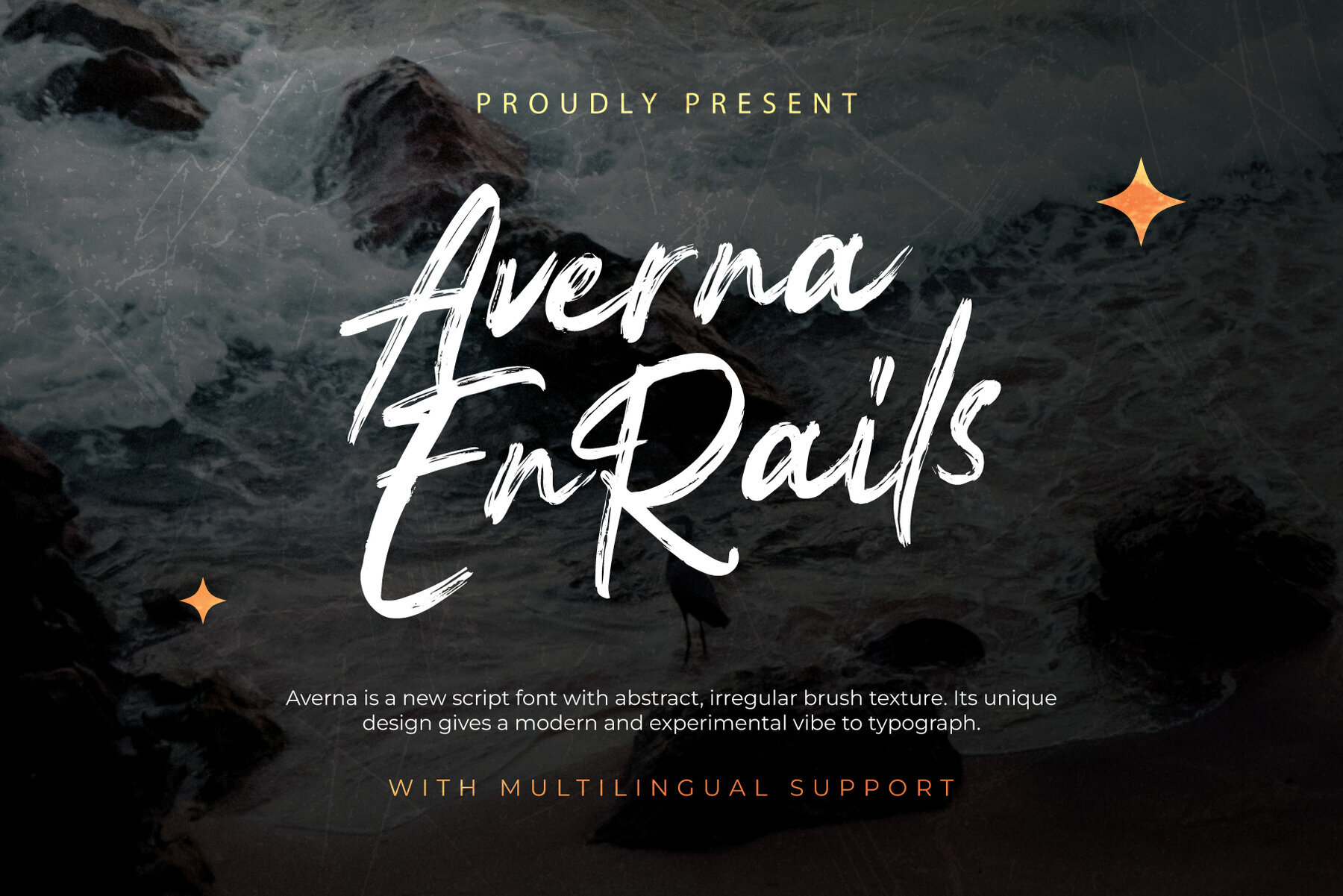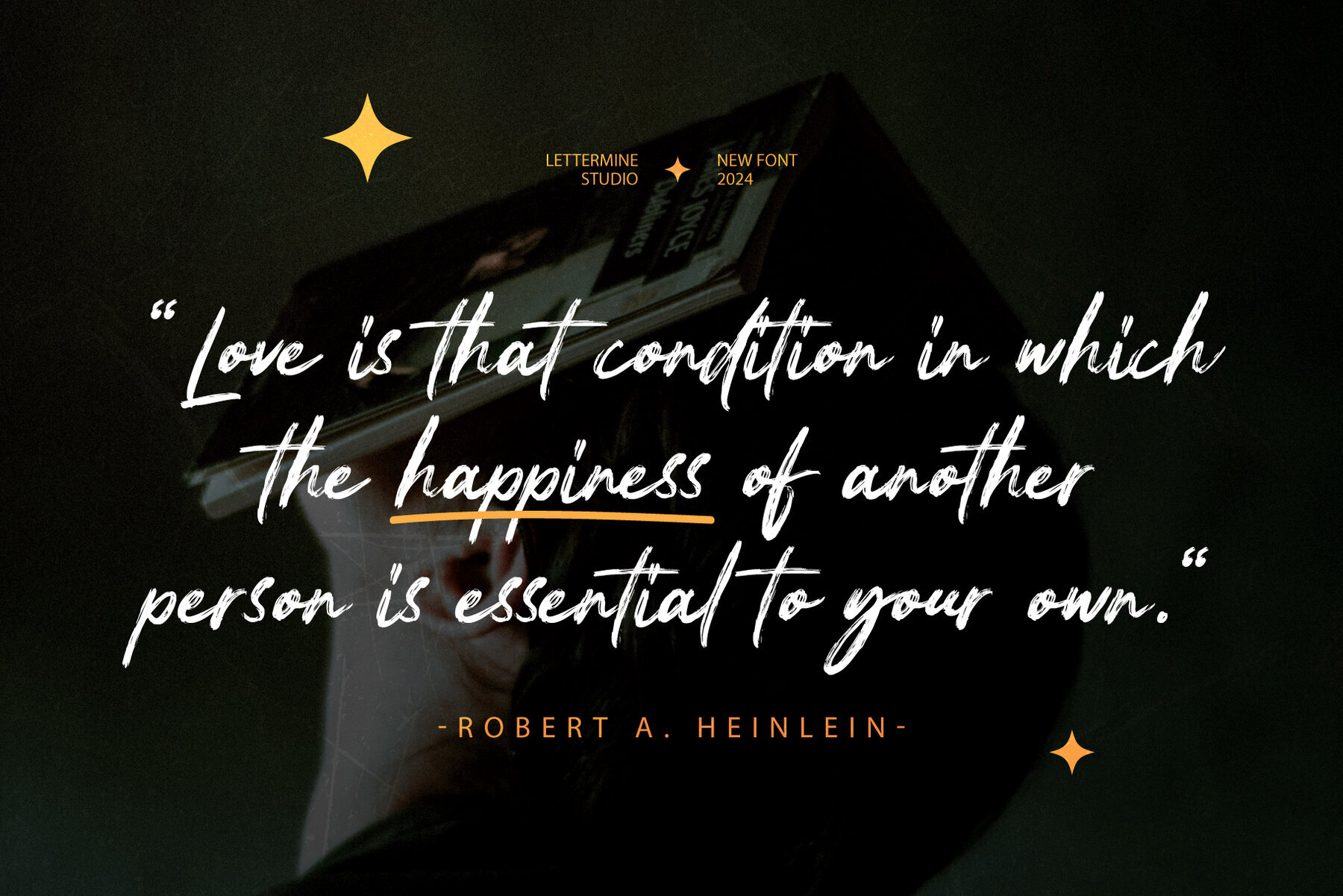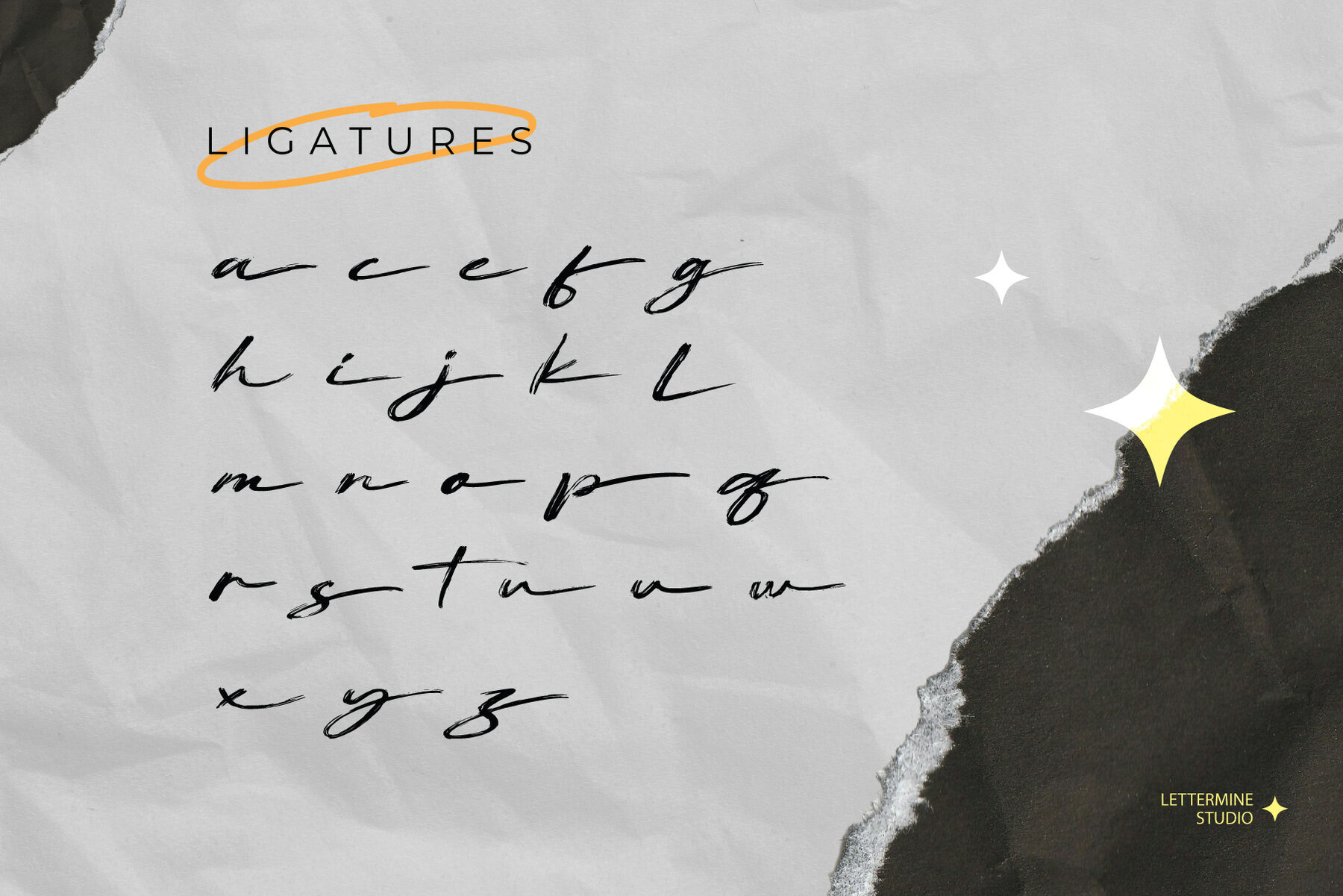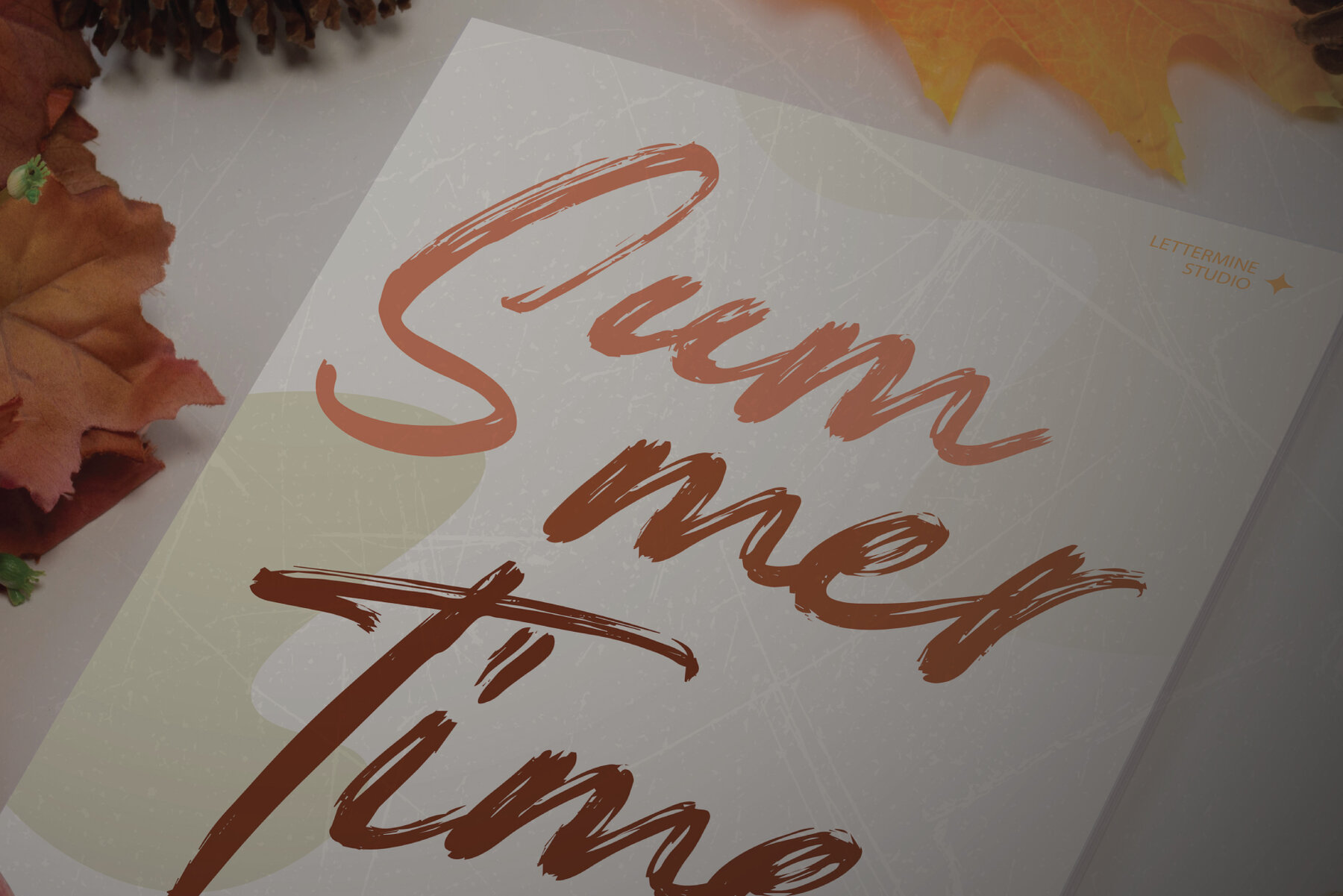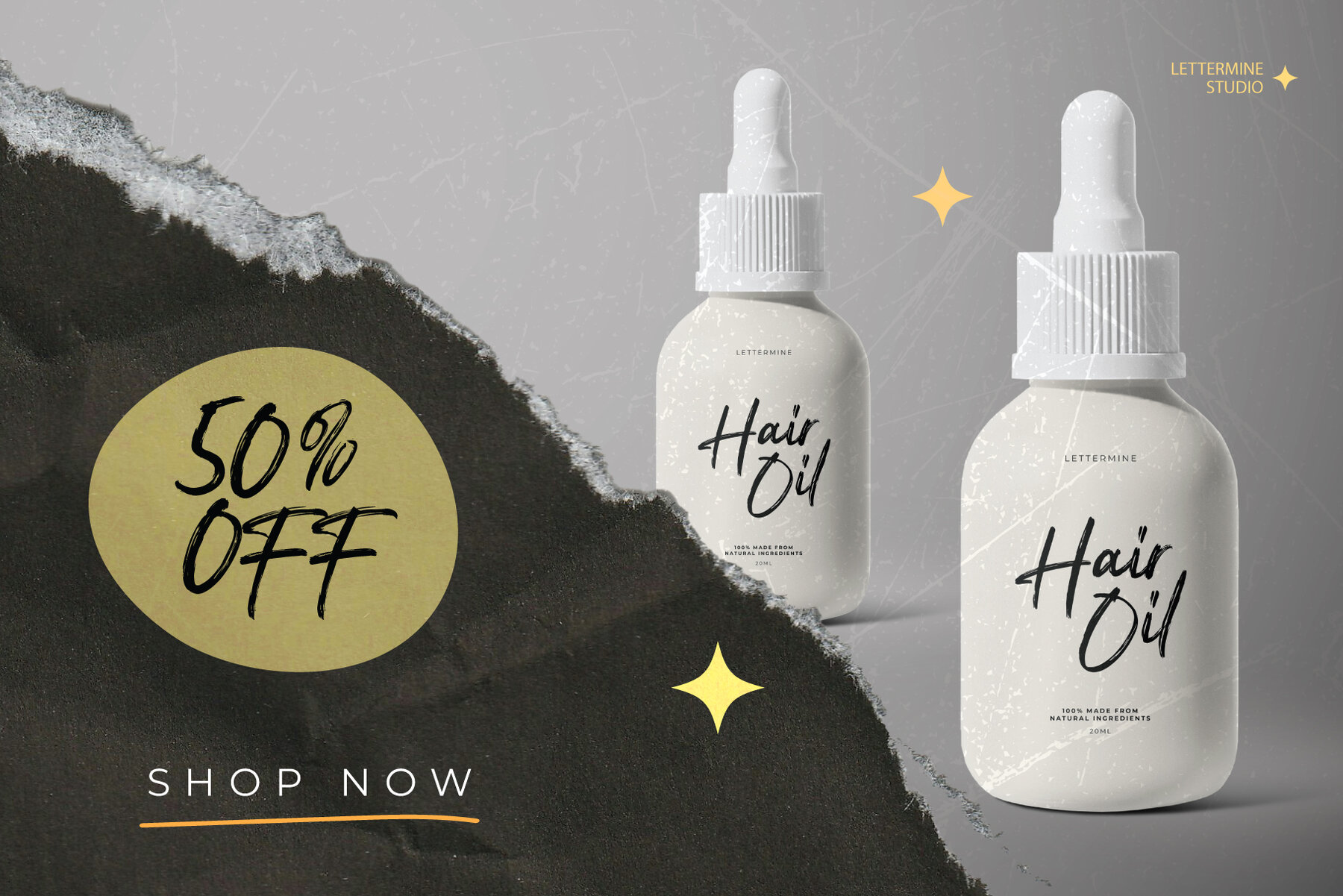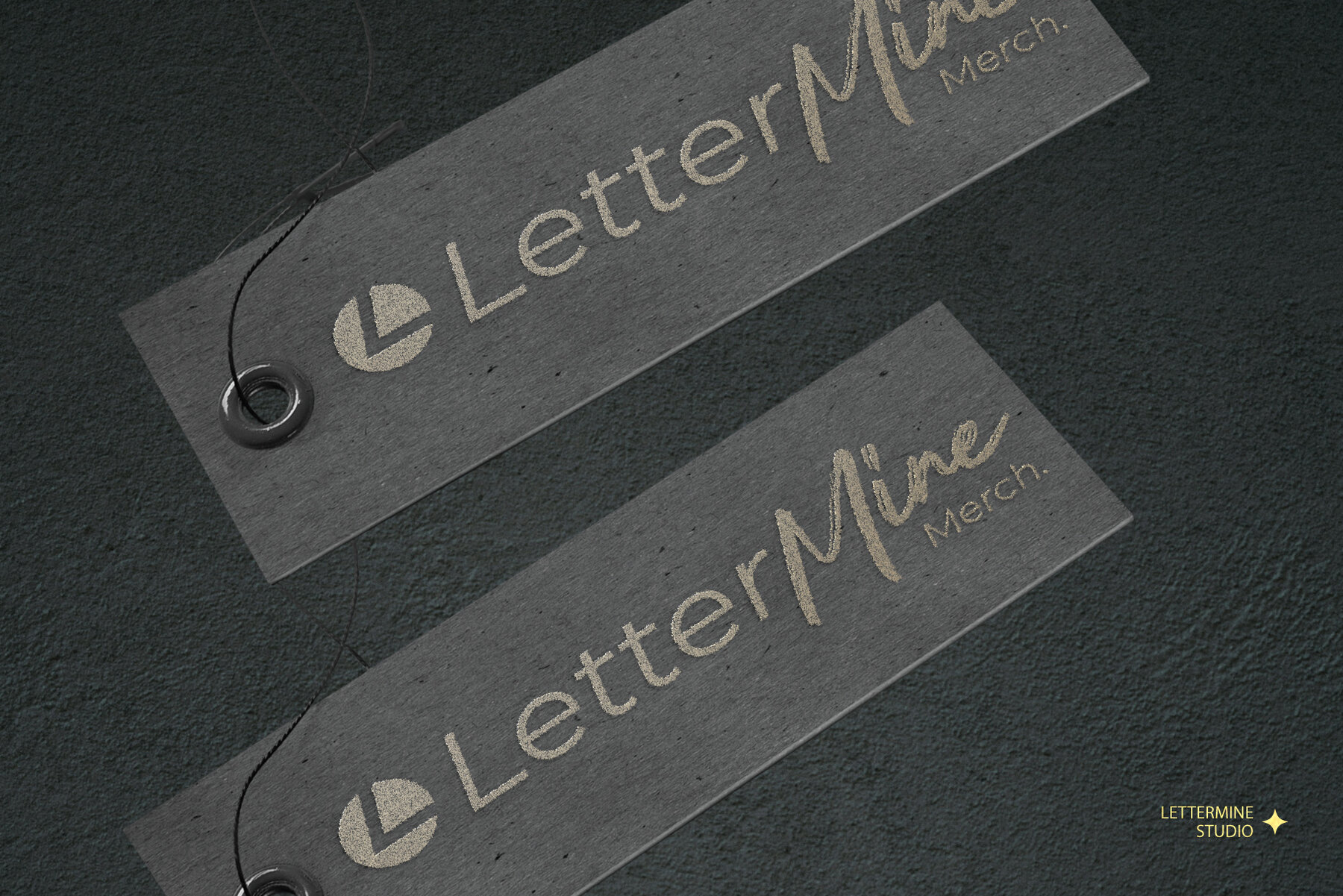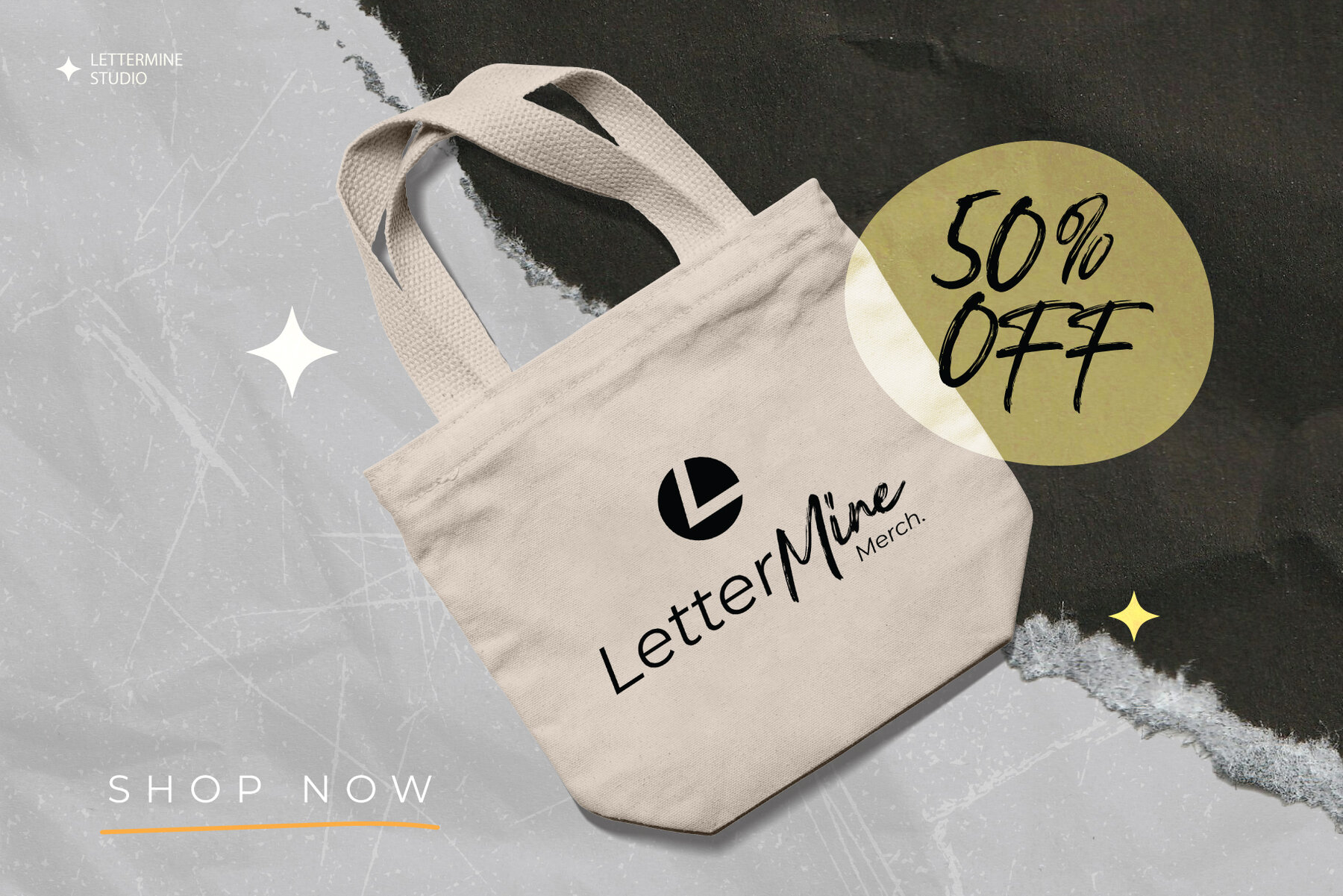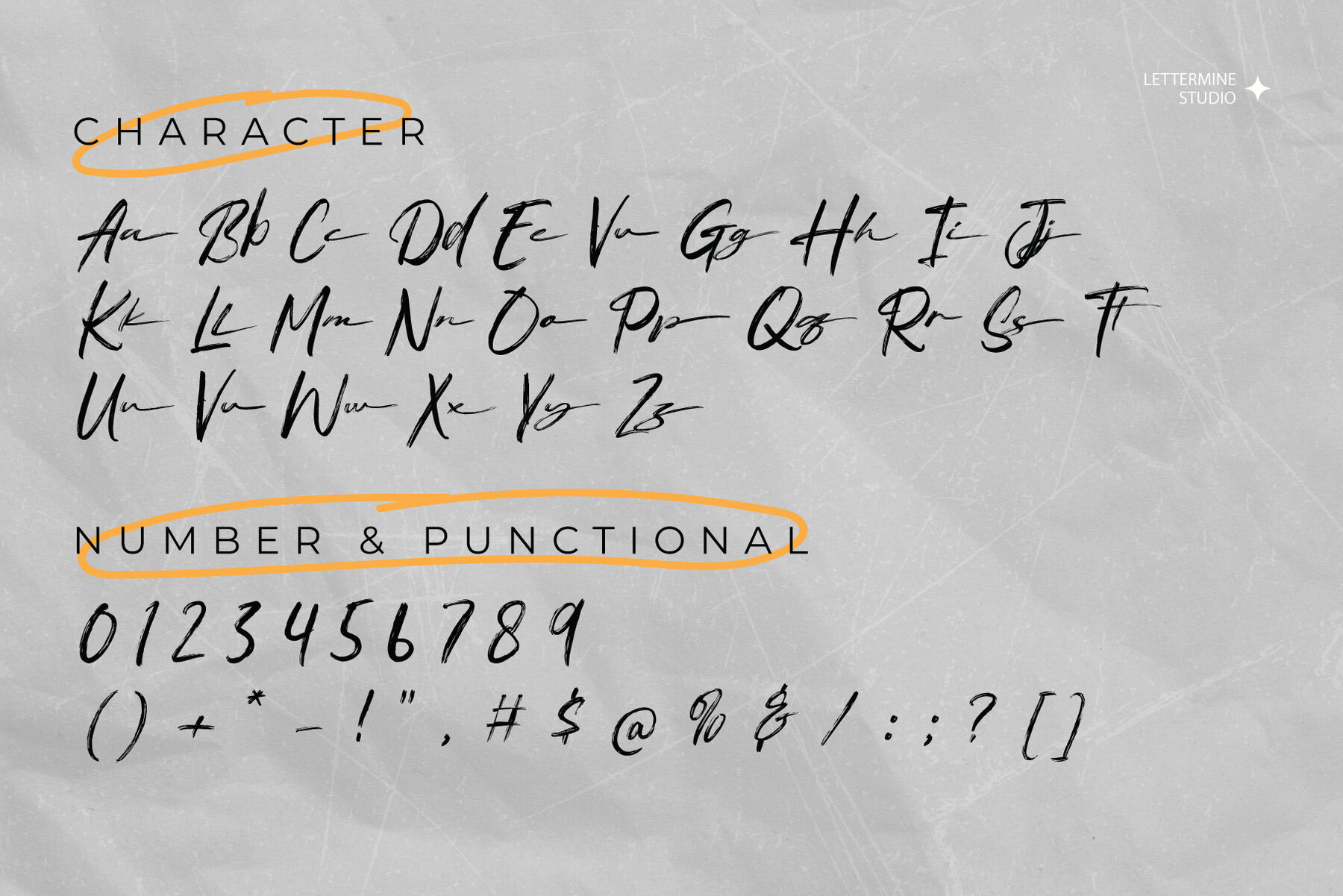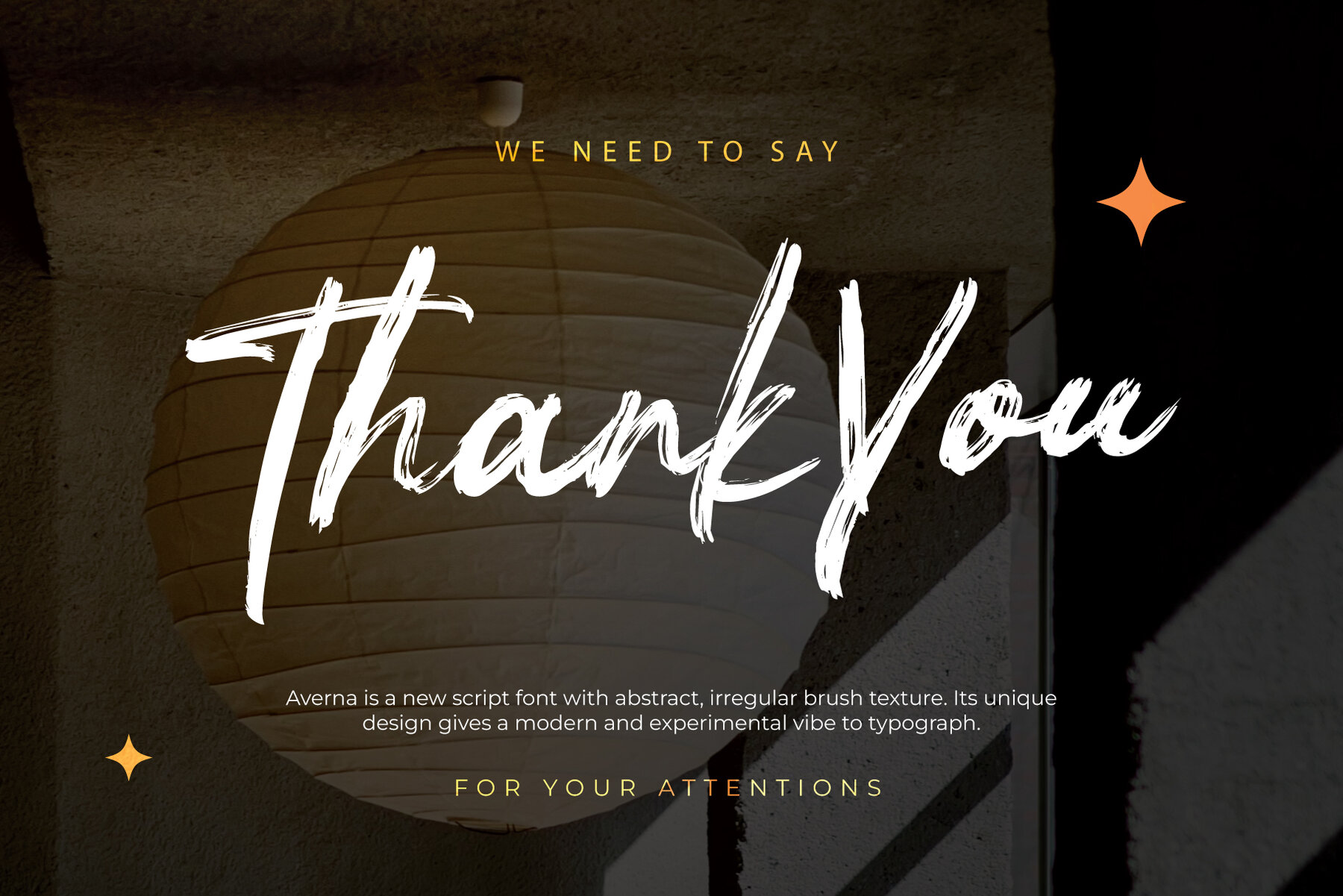
Averna En Rails Font
Averna En Rails
This font is characterized by its expressive brush strokes and a distinctly handcrafted appearance. Suited for projects that require a personal, artistic touch, it conveys dynamism and spontaneity through its energetic and fluid form. Graphic designers might choose this font to add a raw, vibrant energy to branding, advertising, or editorial designs where an informal, gestural quality is desired.